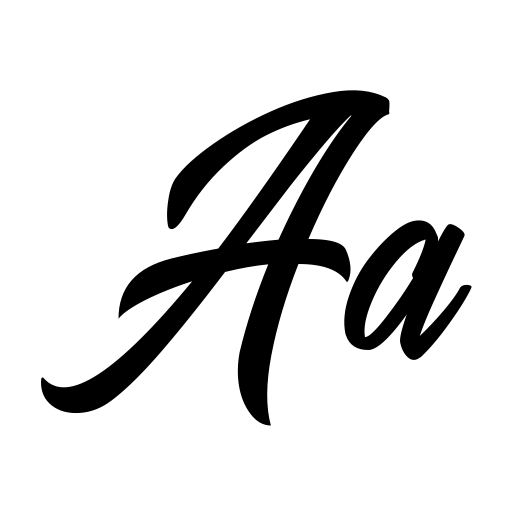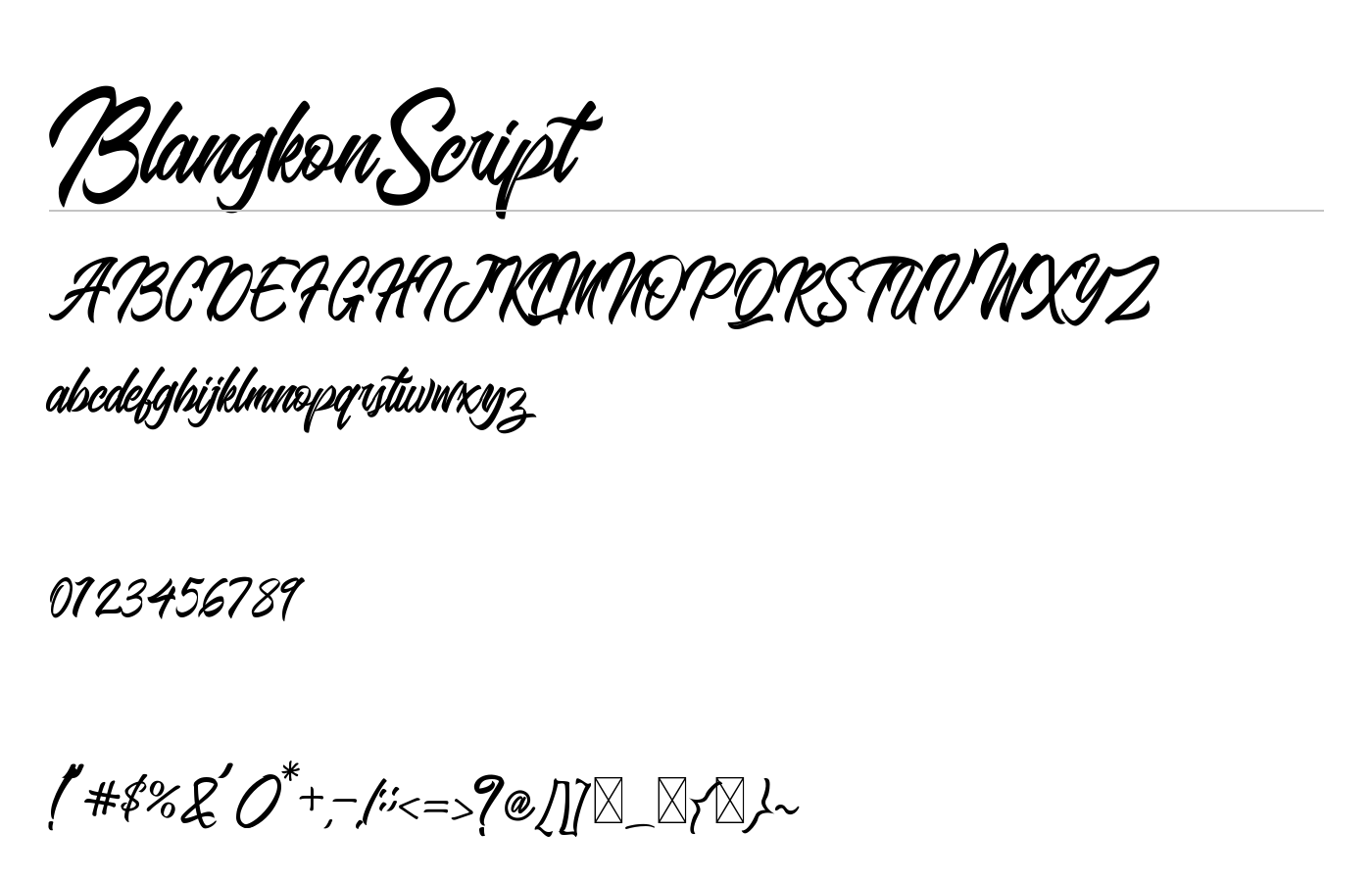
BlangkonScript is a stylish, bold script font that features smooth, flowing letterforms with a lively, hand-drawn feel. Its medium to heavy weight and moderate contrast give it strong presence, while the connected cursive style adds elegance and personality, making it perfect for branding, logos, invitations, and headline use where a warm, artistic touch is desired. This font’s playful yet sophisticated vibe suits creative projects that want to stand out with a unique, handcrafted look.
BlangkonScript Font
About BlangkonScript Font
| Font family | BlangkonScript Font |
| Designer | Arif Dwi |